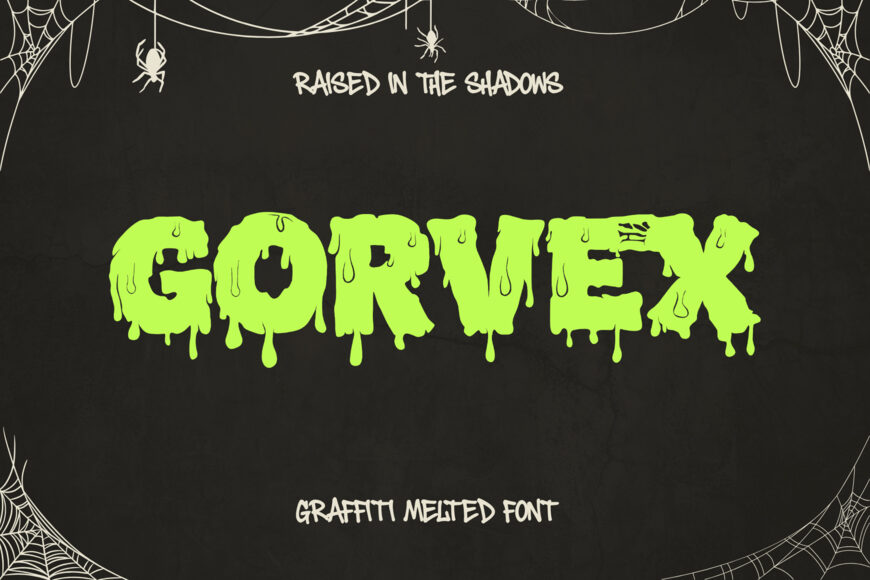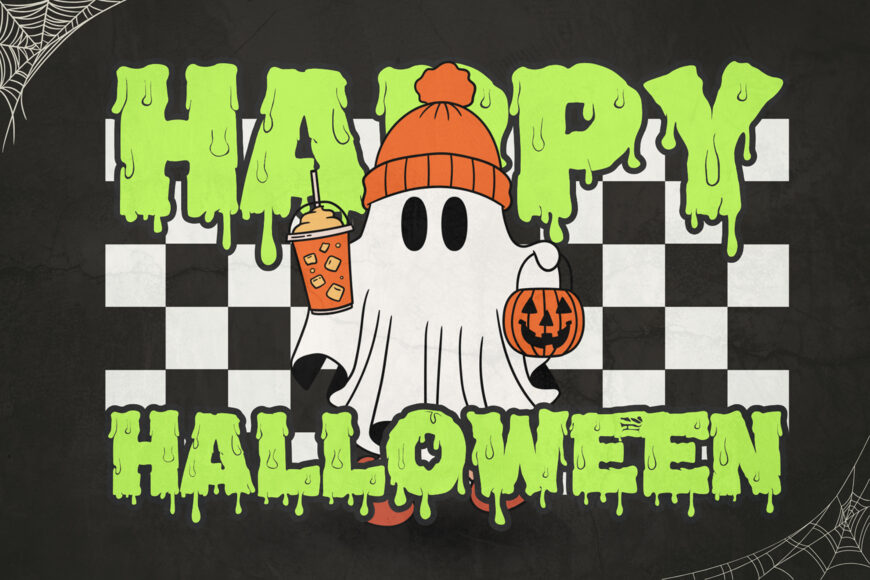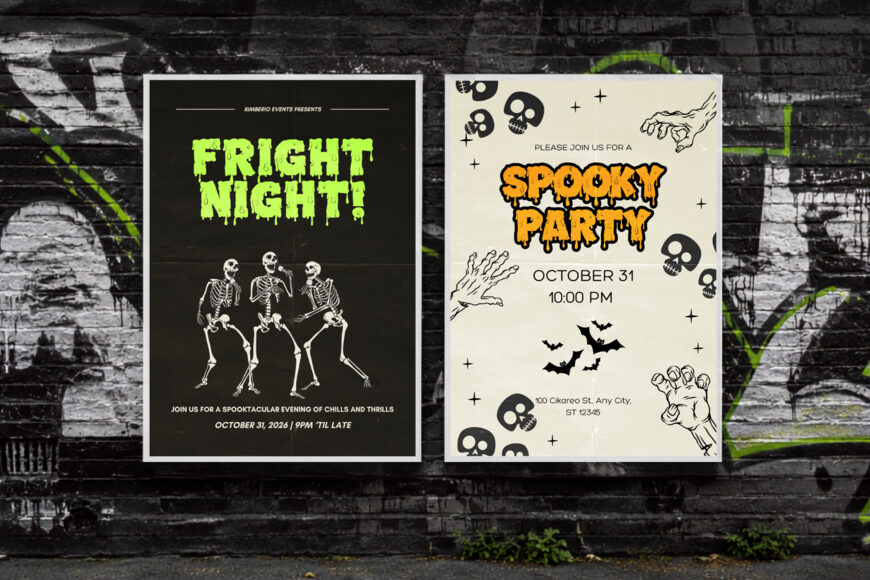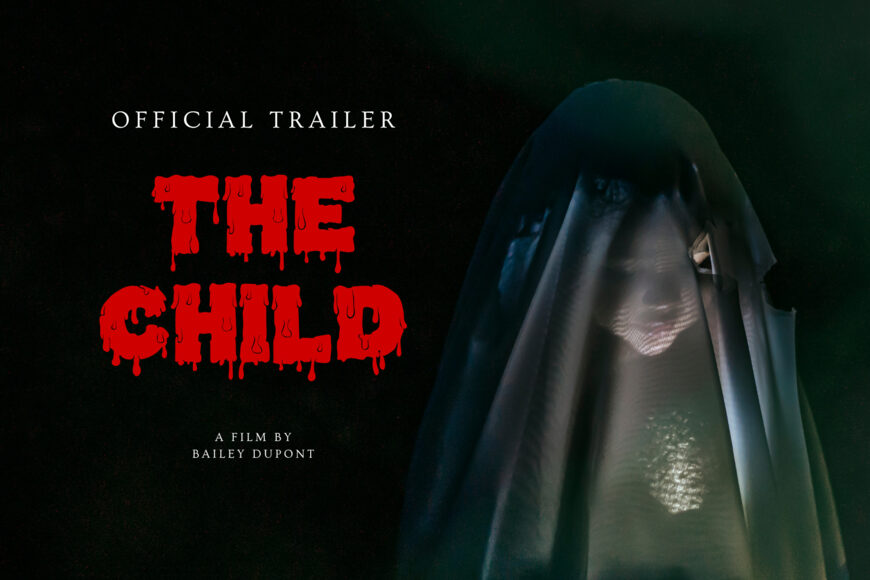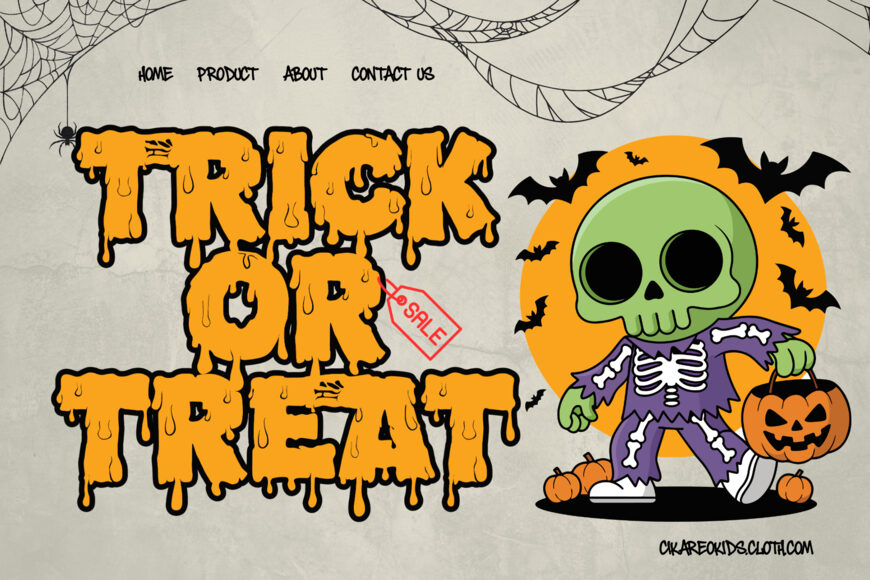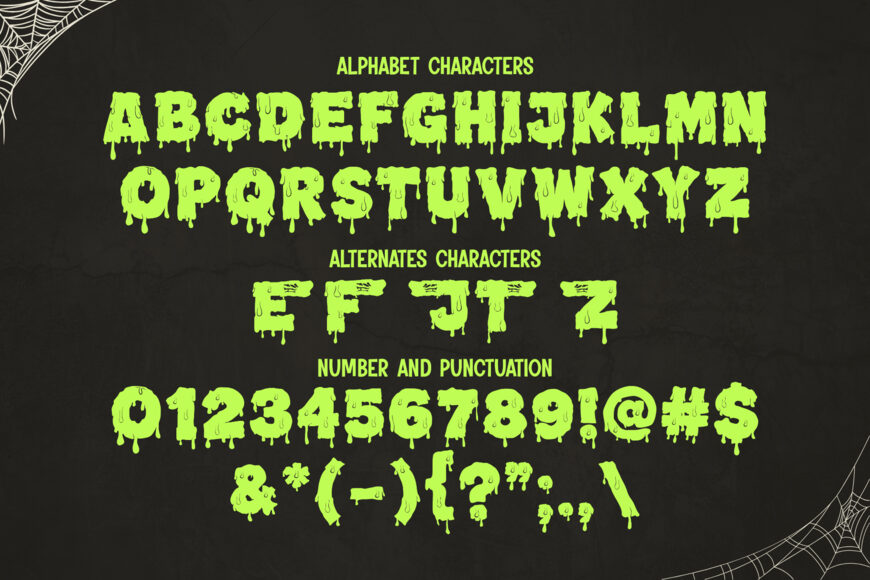
Gorvex is a distinctive Halloween graffiti font that blends spooky aesthetics, melting letterforms, decorative details, and modern street-art energy. Inspired by creepy artwork, dripping type, dark urban graphics, and expressive graffiti culture, it adds a memorable horror-inspired edge to any project.
Ideal for Halloween posters, branding, apparel, social media graphics, horror merchandise, event promotions, and experimental typography, Gorvex creates an instantly recognizable look. Its letters appear to melt, drip, and transform, delivering a creepy yet stylish atmosphere.